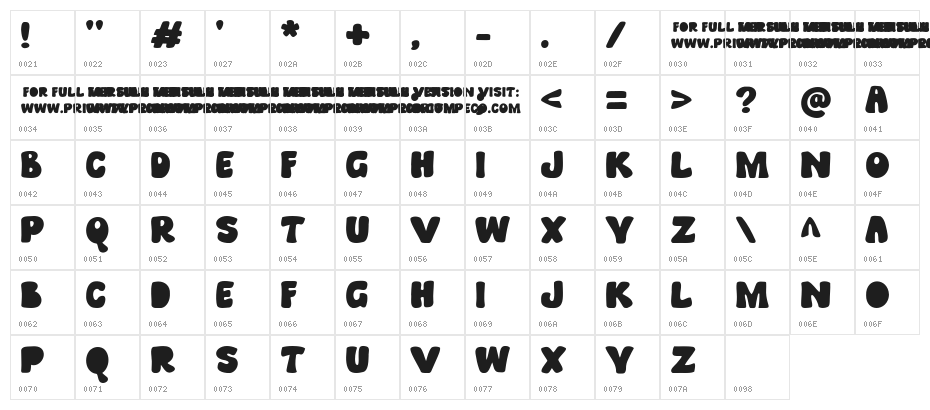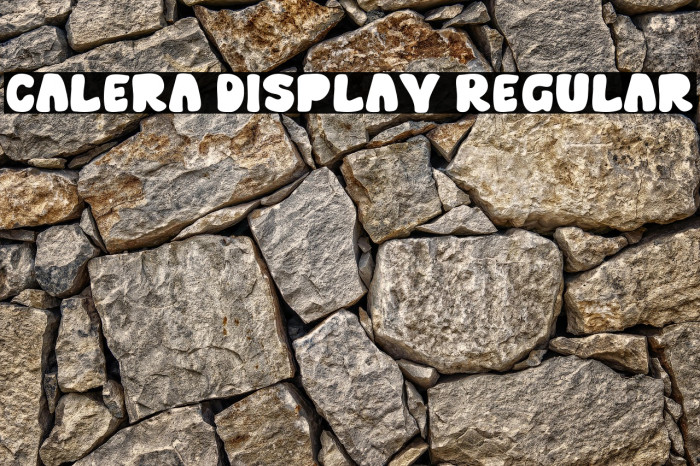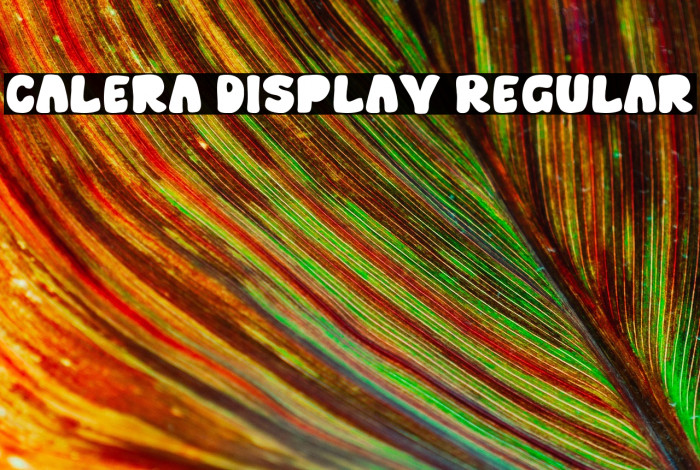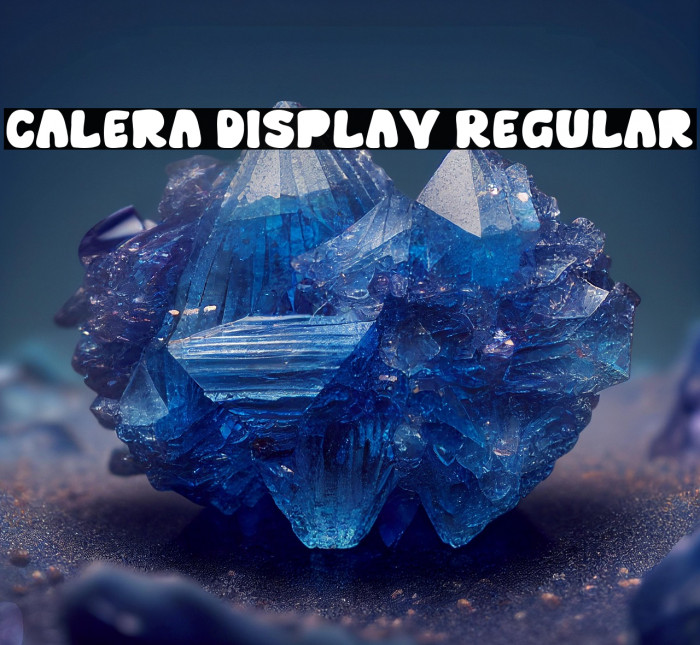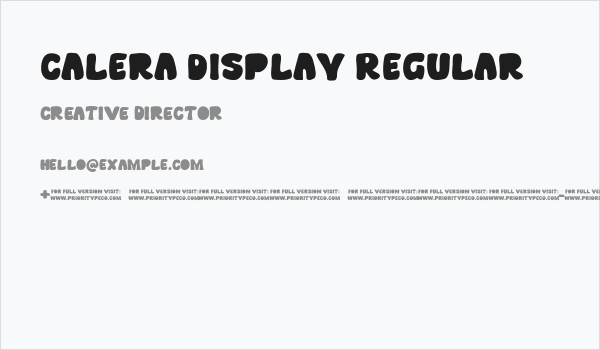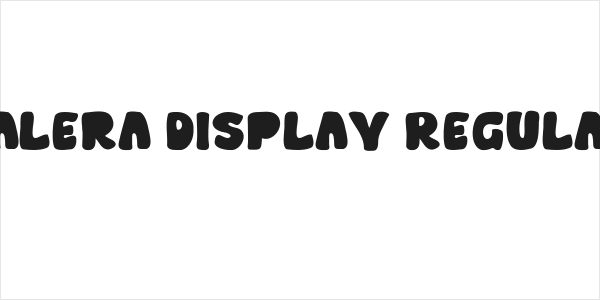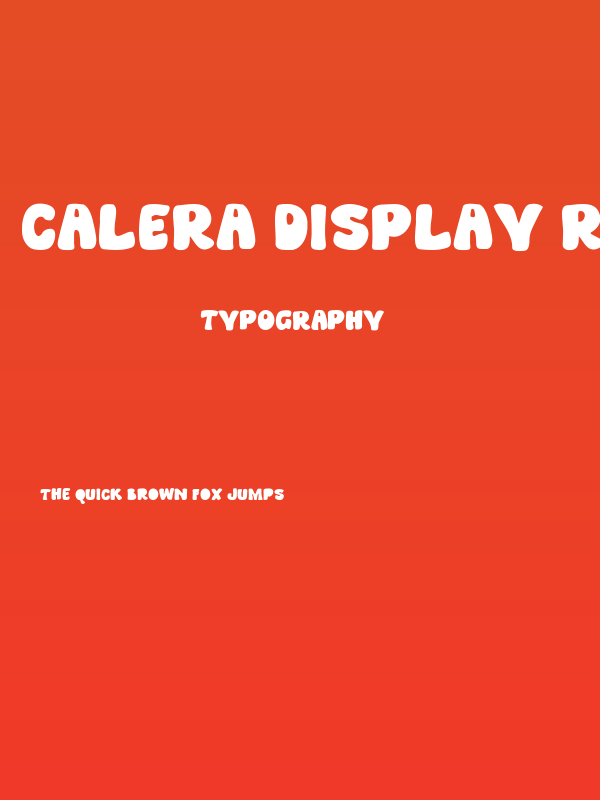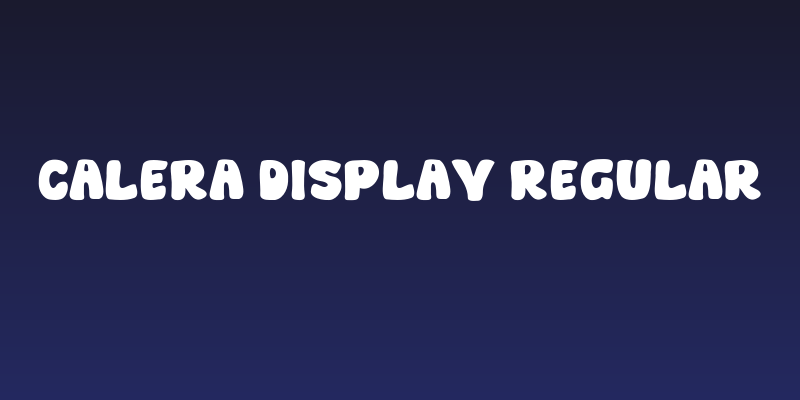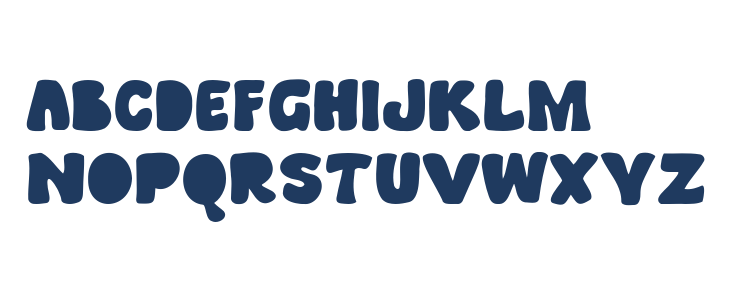
Calera Display Regular Font
Calera Display Regular Description
This font features bold, rounded characters with a playful and friendly appearance. The letters are thick and have a consistent weight throughout, giving them a strong presence on the page. The rounded edges and smooth curves contribute to a soft, approachable look, making it suitable for designs that aim to convey warmth and approachability. The characters are evenly spaced, ensuring readability while maintaining a cohesive visual flow. This style is particularly effective in capturing attention and adding a touch of whimsy to any project.
Overall StylePlayful
Proposed ProjectsIdeal for children's books, playful branding, posters, and social media graphics.